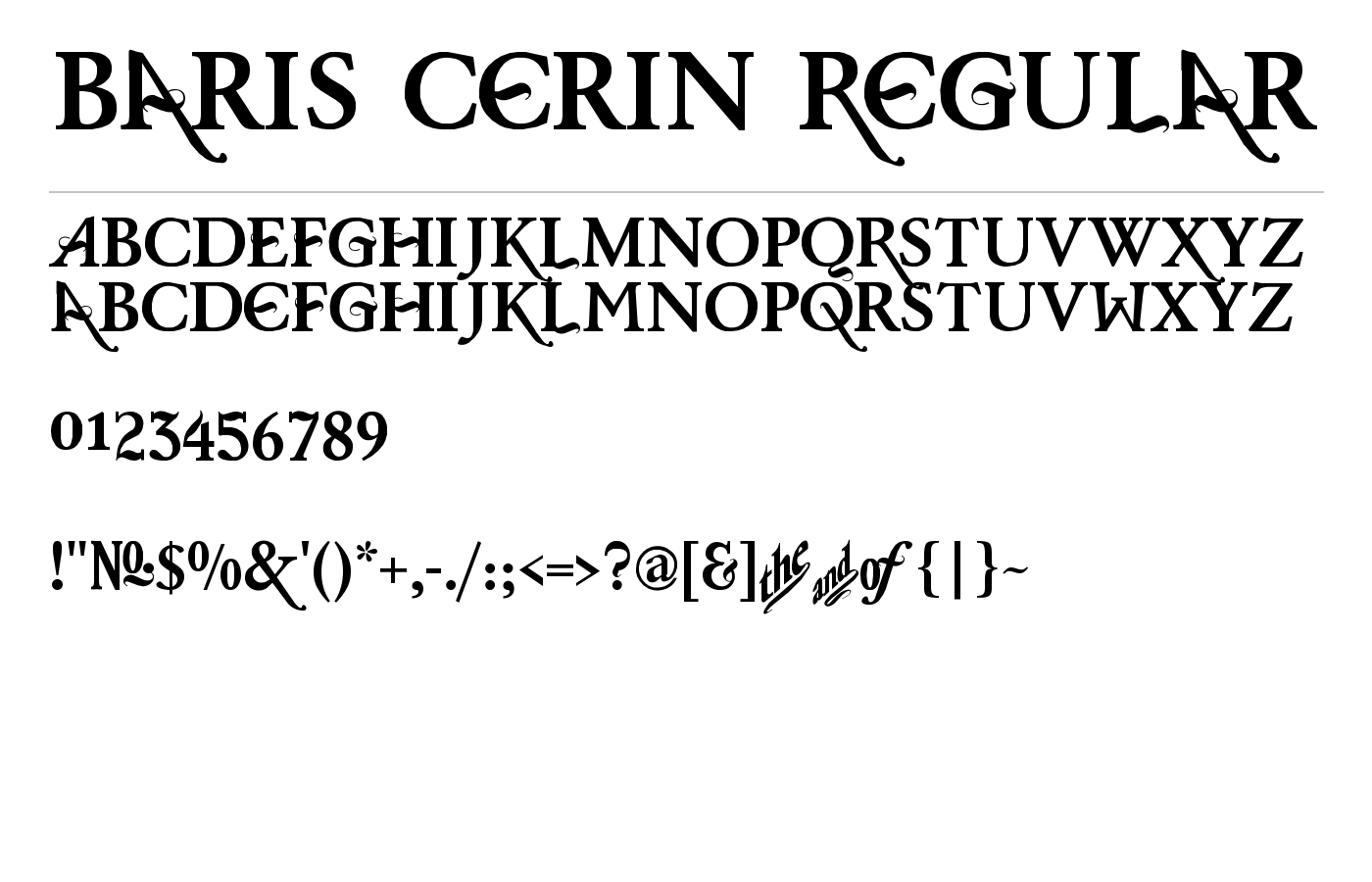
Baris Cerin Regular is a unique serif font that combines a classic, elegant structure with playful, curved flourishes on select letters, giving it a distinctive and artistic personality. With its medium weight, moderate contrast, and sharp serifs, it creates a refined yet expressive look well suited for stylish branding, editorial headlines, and creative design projects that seek a blend of tradition and flair. This font works especially well where a touch of sophistication with a whimsical twist is desired.
Baris Cerin Regular Font
About Baris Cerin Regular Font
| Font family | Baris Cerin Regular Font |
| Languages supported | Latin, Cyrillic, Symbols, Greek |
| Designer | BoltCutterDesign - Industrial Strength |